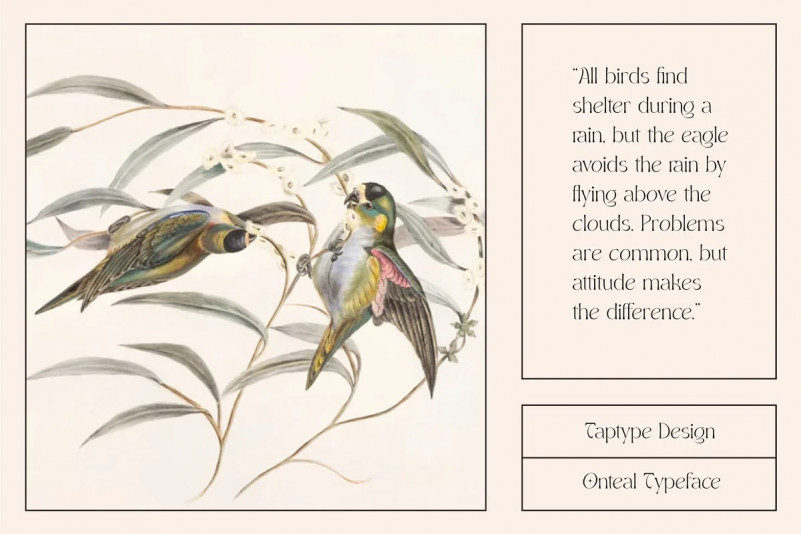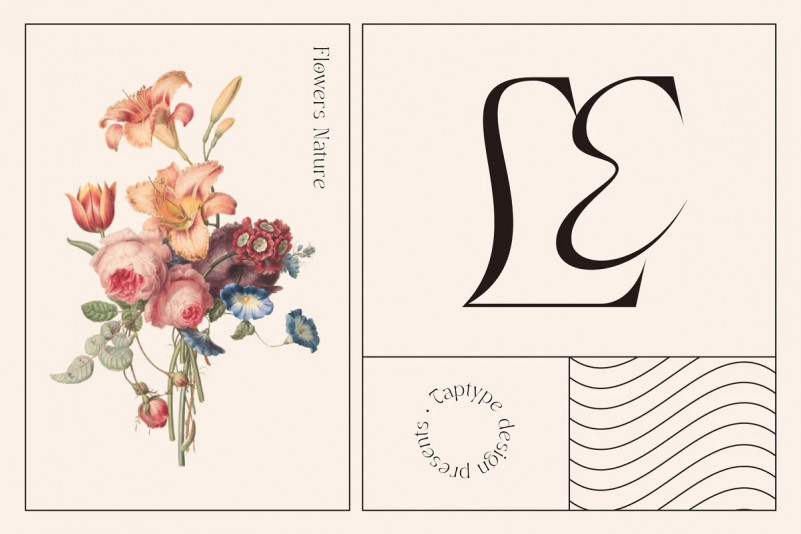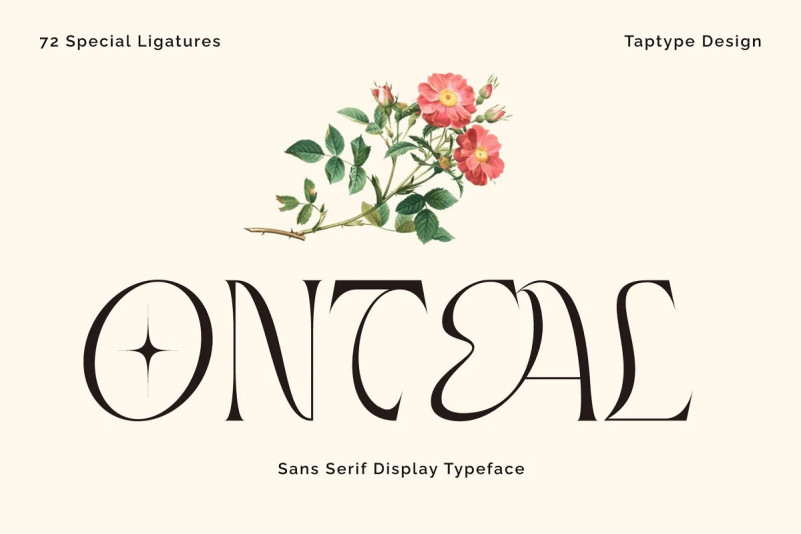
Onteal Font
Onteal is a stylish modern font Serif. Minimalist character that allowing you to easily edit the designs. It is perfect for branding, wedding invites and cards, and maybe for some project.